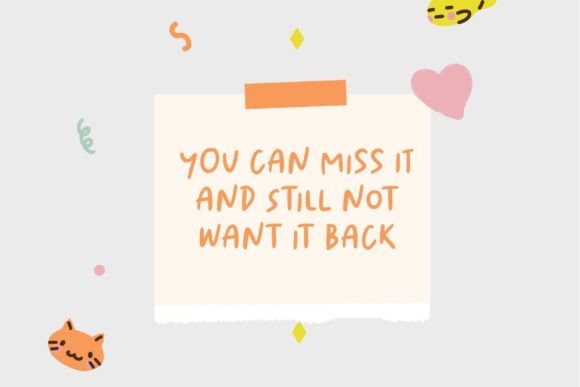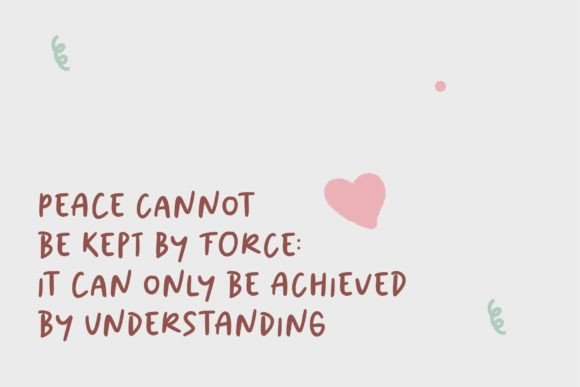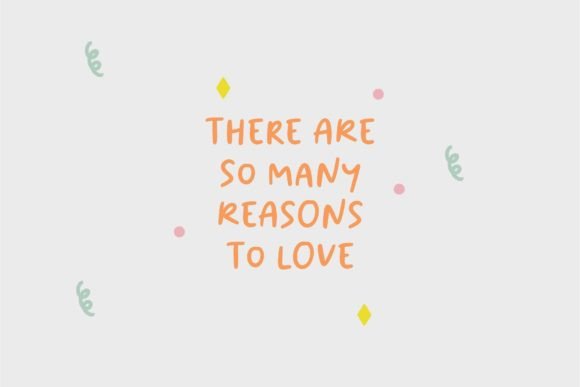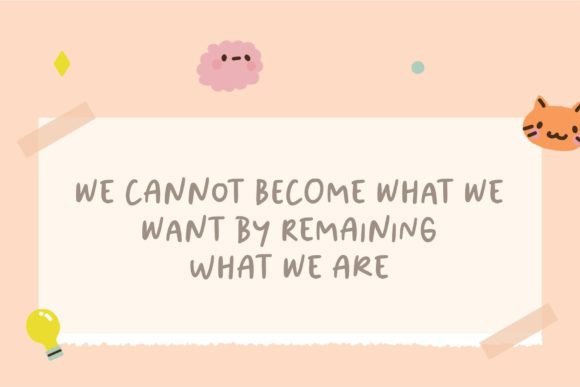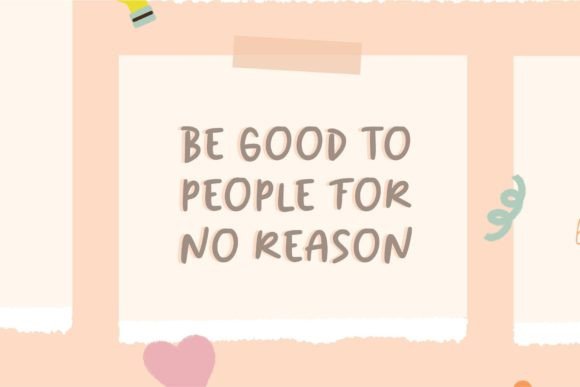
Crafting Cuteness with the Eskiko Market Font
You know that moment when you’re browsing through Pinterest and come across a quote or graphic that just makes your heart skip a beat? The perfect combination of fonts, colors, and graphics can evoke so much emotion, don’t you think? As a designer, you’re always on the lookout for the perfect tools to help you create those magical moments. That’s where the Eskiko Market Font comes in – a beautiful, handwritten font designed to help you create the cutest designs.
Whether you’re creating quotes, social media posts, or even decorating digital products, the Eskiko Market Font is a valuable addition to your design toolkit. Its unique, handwritten style adds a touch of personality to any design, making it perfect for brands and individuals who want to stand out from the crowd.
Eskimo Market Font Key Features
- Font Family: Eskimo Market Font comes in multiple font styles, including Regular, Bold, Italic, and Bold Italic.
- Character Count: The font contains a vast character set, including Latin, Cyrillic, and Greek alphabets, as well as punctuation and special characters.
- Font Size: The font is available in a range of sizes, from 8pt to 72pt, making it suitable for various design applications.
- Resolution: The font is designed for high-resolution displays and can be used at resolutions up to 300 DPI.
- Unique Characteristics: The font features a unique, modern design with a blend of Scandinavian and Arctic influences, making it perfect for brands and designs related to the Arctic region or winter sports.
Eskimo Market Font Review
I recently had the chance to work with the Eskimo Market Font, and I have to say it’s a mixed bag. On the one hand, it’s got some great qualities that make it a solid choice for certain projects.
- Unique aesthetic**: The Eskimo Market Font has a distinct, hand-drawn look that can add a touch of personality to your designs.
- Large character set**: The font includes a wide range of characters, including Latin, Cyrillic, and Greek alphabets, making it suitable for international projects.
- Web font support**: Eskimo Market Font is optimized for web use, ensuring smooth rendering on various devices and browsers.
- Limited legibility at small sizes**: The font’s unique style can make it difficult to read at very small font sizes, which may be a concern for projects requiring extensive text.
- No bold or italic variations**: While the font’s regular weight is charming, the lack of bold and italic styles can limit its versatility.
Overall, I think the Eskimo Market Font is a great choice for projects that require a unique, hand-crafted look. However, it may not be the best fit for projects that demand high legibility or extensive text use.
Tips for Getting the Most Out of Eskimo Market Font
To get the most out of Eskimo Market Font, use it in conjunction with bold and italic styles to add emphasis to your text. You can also use it in combination with other fonts to create a unique and visually appealing design. Experiment with different font sizes and colors to find the perfect balance for your design.
Eskimo Market Font is commonly used in modern and minimalist designs, such as logos, branding materials, and marketing materials. It’s also a popular choice for digital products, such as e-books, courses, and software interfaces. Use it to create a clean and professional look that’s perfect for conveying your message.
What is the character set of the Eskimo Market Font?
The Eskimo Market Font includes a comprehensive character set, including Latin, Cyrillic, and Greek alphabets, as well as punctuation and symbols. It also supports a wide range of languages, including English, Spanish, French, and more.